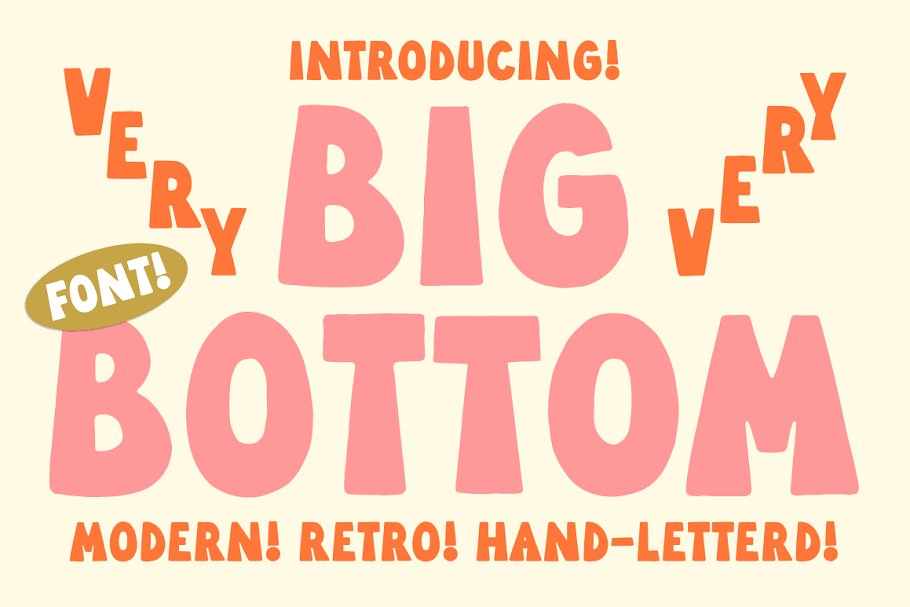
Introducing Big Bottom! Hand Lettered Font! - the ultimate choice for anyone seeking a modern, retro, and eye-catching font to elevate their designs! Created by the talented Kelli Studio Funshop, this sans serif font is packed with personality and charm, making it the perfect addition to your font collection.
Big Bottom! Hand Lettered Font! is not your average font - it was meticulously hand-drawn to give you that authentic hand-lettered look. Every character in this font has been carefully crafted with alternates, adding an extra layer of uniqueness and artistic flair to your designs. Whether you're creating a logo, designing display materials, or even adding a handmade touch to your artwork, this font has got you covered.
But what sets Big Bottom! Hand Lettered Font! apart from the rest? It's the one-of-a-kind bottom heavy shape that allows it to effortlessly hug curves like a pro. Say goodbye to awkward spacing and hello to seamless designs that flow beautifully. Don't just take our word for it - check out slide 2 for stunning examples of how this font accentuates curves with finesse.
The possibilities with Big Bottom! Hand Lettered Font! are endless. With uppercase letters A-Z, numbers, symbols, and punctuation, you have all the tools you need to create captivating and engaging designs. And let's not forget the added bonus - each character has an alternate version, giving you even more creative freedom to play around with.